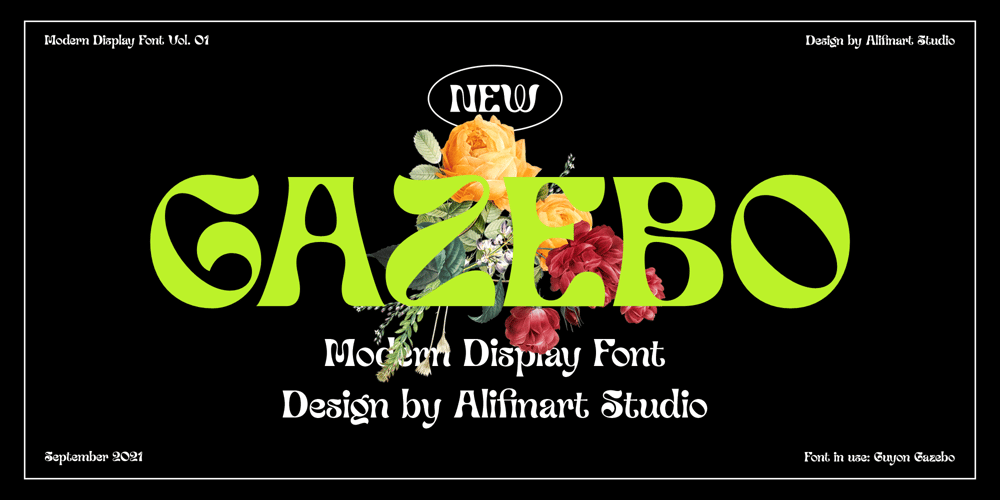
Guyon Gazebo Font Family was designed by Alif Nuryasin and published by Alifinart Studio. Guyon Gazebo contains 2 styles and family package options. Introducing Guyon Gazebo, the luxurious display font that will elevate your designs to new heights. Get ready to make a bold statement with its unique style, perfect for captivating headlines, branding that stands out, eye-catching promotional materials, or adding a touch of elegance as a stylish text overlay to any background image.With its high contrast strokes, slender stem, and pointed terminals, Guyon Gazebo exudes sophistication and charm. Let your creativity flow as you explore the extensive collection of standard and discretionary ligatures, ensuring your designs are irresistibly attractive and visually stunning.Embrace the jovial spirit of “Guyonan” as this font’s name suggests, originating from the Javanese language. Inspired by the traditional rural gazebo, where locals gather to exchange jokes, Guyon Gazebo infuses a sense of lightheartedness into your designs.Included in the package are Guyon Gazebo Regular and Italic styles, along with a full set of basic Latin characters, ligatures, numerals, and punctuation marks, providing you with all the tools you need to bring your vision to life.Don’t miss out on this opportunity to enhance your design projects with Guyon Gazebo. Take your typography to the next level and let your creativity shine. Get Guyon Gazebo today and unlock a world of endless possibilities.Ready to make a statement? Purchase Guyon Gazebo now and let your designs speak volumes!What’s included: Guyon Gazebo Regular & Italic Full set of basic Latin+ Ligatures Numeral & punctuation Multilingual Support:Afrikaans, Albanian, Basque, Bemba, Bena, Breton, Catalan, Chiga, Colognian, Cornish, Croatian, Czech, Danish, Dutch, Embu, English, Esperanto, Estonian, Faroese, Filipino, Finnish, French, Friulian, Galician, German, Gusii, Hungarian, Indonesian, Irish, Italian, Kabuverdianu, Kalaallisut, Kalenjin, Kamba, Kikuyu, Kinyarwanda, Latvian, Lithuanian, Lower Sorbian, Luo, Luxembourgish, Luyia, Machame, Makhuwa-Meetto, Makonde, Malagasy, Maltese, Manx, Meru, Morisyen, North Ndebele, Norwegian Bokmål, Norwegian Nynorsk, Nyankole, Oromo, Polish, Portuguese, Quechua, Romanian, Romansh, Rombo, Rundi, Rwa, Samburu, Sango, Sangu, Scottish Gaelic, Sena, Serbian, Shambala, Shona, Slovak, Soga, Somali, Spanish, Swahili, Swedish, Swiss, German, Taita, Teso, Turkish, Upper Sorbian, Uzbek (Latin), Volapük, Vunjo, Walser, Zulu.Typeface Story:The name “Guyon” derives from the Javanese language and is often associated with humor or joking. In rural areas, there is a traditional gazebo called “Cakruk” where locals gather in the afternoon or evening to exchange jokes (known as “guyonan”). This font’s name pays homage to the jovial atmosphere found in these communal spaces.Thank you for choosing Guyon Gazebo!If you have any questions or need assistance, feel free to reach out to us.——————————Alifinart Studioalifinart@gmail.comwww.alifinart.comInstagram | Behance